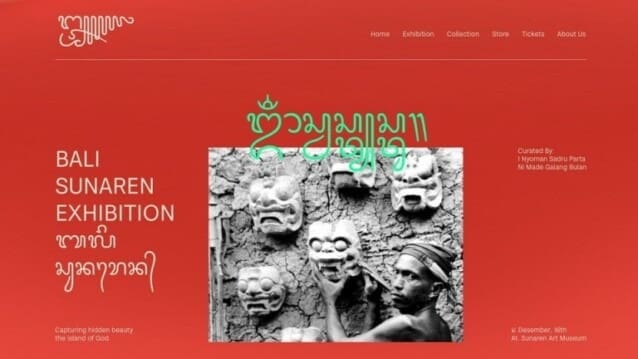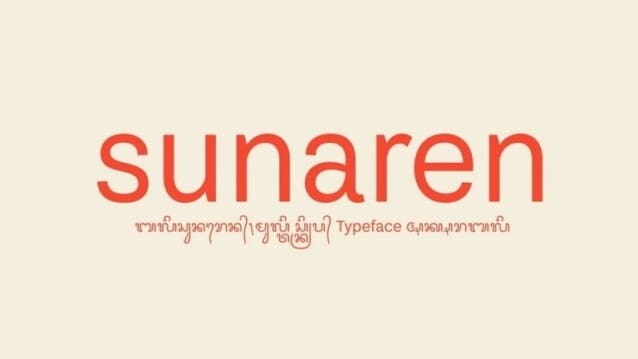
Bali Sunaren Font
Bali Sunaren Font is a modern and minimalist font with an elegant and trendy touch. Bali Sunaren Font is a multiscript font rooted from Balinese and Sasak Script and covering over 90+ Latin languages too. Crafted in a neo-grotesque style sans-serif, BaliSunaren seamlessly blends Latin with Balinese script to bridge tradition and modernity. This typeface is an excellent choice for both body copy and some specific headline text.
The delightful looks of harmony between the Latin script and Balinese script mirrors the age-old concept of ‘rwa bhineda.’ In the Balinese philosophy, ‘rwa bhineda’ paints a vivid picture of the harmony we aim to achieve with this typeface. It gracefully blends the opposite elements, showcasing how the unique characteristics of Latin and Balinese scripts can beautifully coexist and balance when they come together.